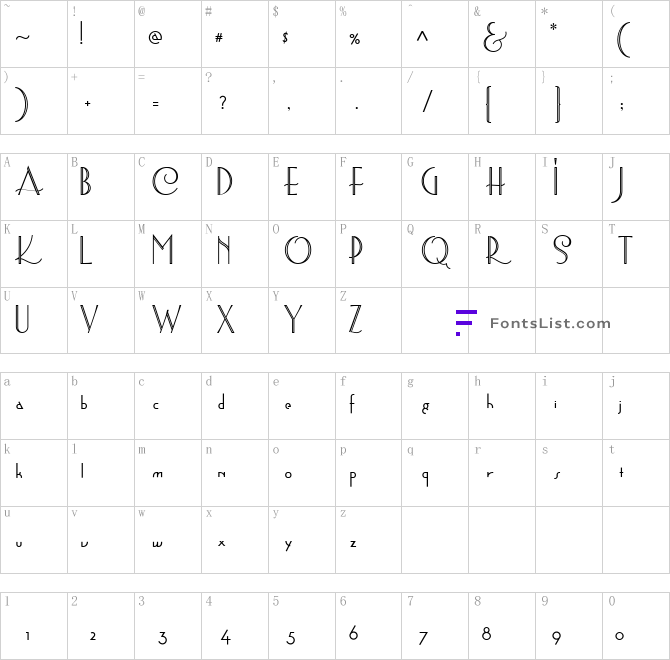
- Font Name:AstoriaTitling
AstoriaTitling.ttf is a very beautiful artistic font, AstoriaTitling.ttf is widely used in the design and printing of various books and pictures,AstoriaTitling.ttf has a strong visual impact,AstoriaTitling.ttf is a commonly used font in newspapers, magazines and books, and is used in posters, e-commerce Poster design, store design, logo design, font design and other fields.AstoriaTitling.